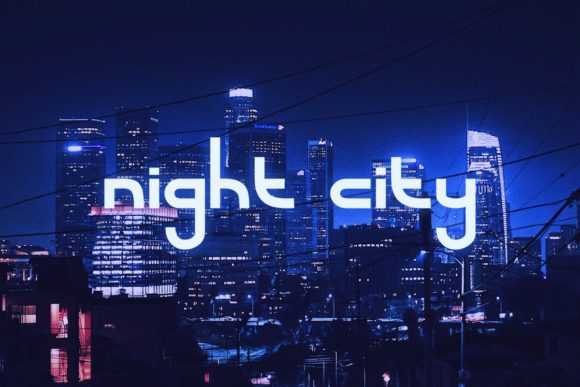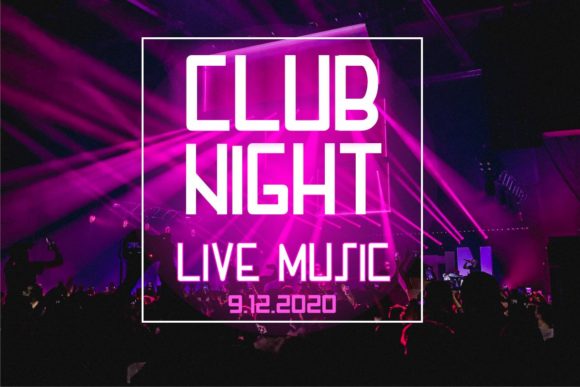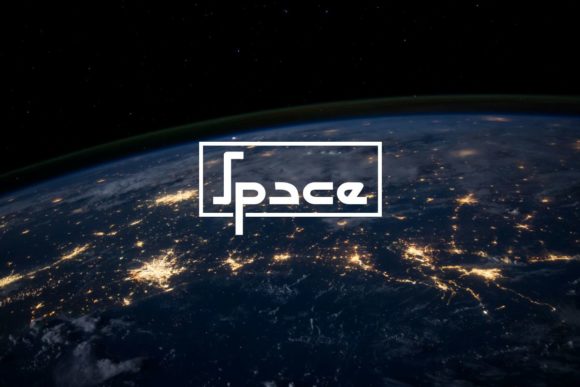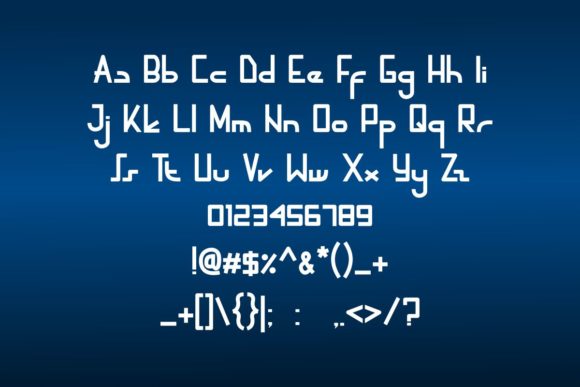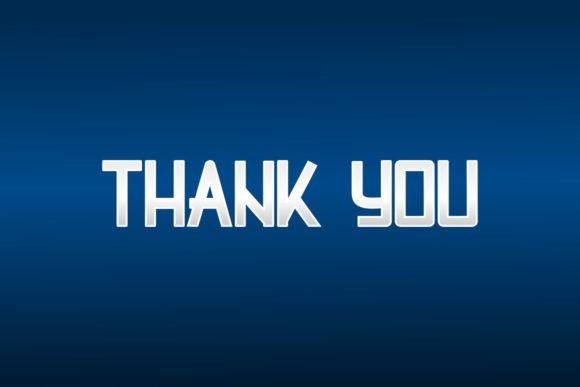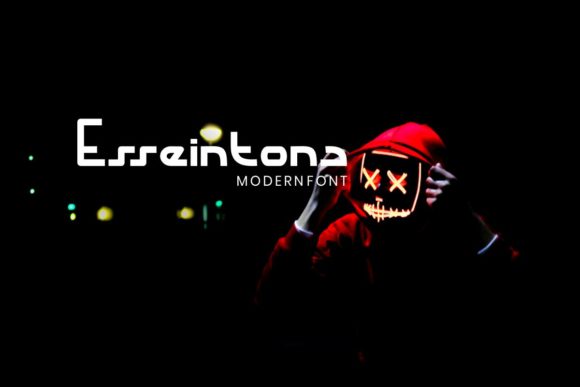
Introducing Esseintona Font: A Bold and Versatile Display Font
Are you tired of using the same old fonts in your designs? Look no further than Esseintona Font, a bold and neat display font that’s perfect for adding a touch of uniqueness to your projects. With its natural and unique style, Esseintona is incredibly fitting for a large pool of designs, and the only limit is your imagination!
What Makes Esseintona Font So Special?
Esseintona Font is a one-of-a-kind display font that’s designed to make a statement. Its bold and clean lines make it perfect for headlines, titles, and other applications where you want to grab attention. But what really sets Esseintona apart is its unique style, which is both natural and elegant. This font is perfect for designers and crafters who want to add a touch of sophistication to their work.
Key Features of Esseintona Font
- Bold and Neat Design: Esseintona Font features a bold and clean design that’s perfect for making a statement.
- Natural and Unique Style: The font’s natural and unique style makes it incredibly fitting for a wide range of designs.
- Highly Versatile: Esseintona Font can be used for a variety of projects, from logos and branding to posters and social media graphics.
- Easy to Read: Despite its bold design, Esseintona Font is easy to read, even at smaller sizes.
Uses for Esseintona Font
So, what can you use Esseintona Font for? The possibilities are endless! Here are a few ideas to get you started:
- Logos and Branding: Use Esseintona Font to create a bold and memorable logo for your business or brand.
- Posters and Flyers: Esseintona Font is perfect for creating eye-catching posters and flyers that grab attention.
- Social Media Graphics: Use Esseintona Font to create social media graphics that stand out from the crowd.
- Packaging Design: Esseintona Font can be used for packaging design, adding a touch of elegance and sophistication to your products.
Tips for Using Esseintona Font
Here are a few tips for getting the most out of Esseintona Font:
- Use it as a Headline Font: Esseintona Font is perfect for headlines and titles, where you want to grab attention.
- Experiment with Colors: Try using Esseintona Font with different colors and textures to add depth and interest to your designs.
- Pair it with Other Fonts: Esseintona Font can be paired with other fonts to create a unique and interesting contrast.
| Font Name | Esseintona Font |
| Author | Pidco.art |
In conclusion, Esseintona Font is a bold and versatile display font that’s perfect for designers and crafters who want to add a touch of uniqueness to their work. With its natural and unique style, Esseintona is incredibly fitting for a large pool of designs, and the only limit is your imagination! So why not give Esseintona Font a try today and see what amazing designs you can create?